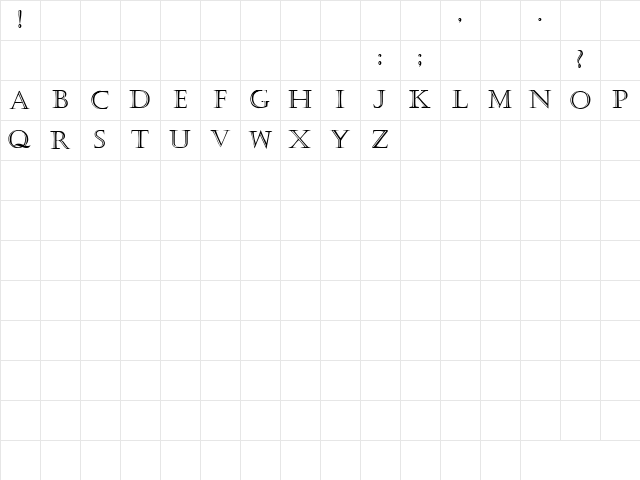
Stone Free 1 Regular
Design Context for Stone Free 1
Stone Free 1 is a composed and adaptable typeface that performs quietly and consistently across a wide range of design contexts.